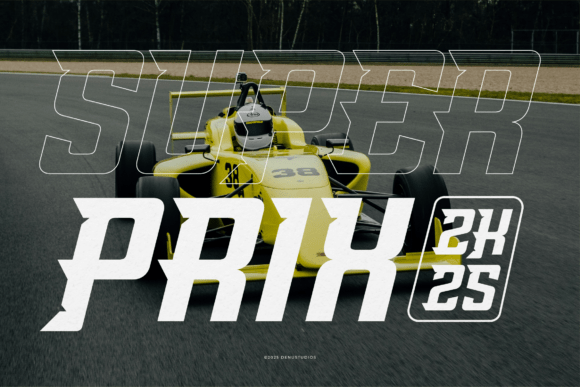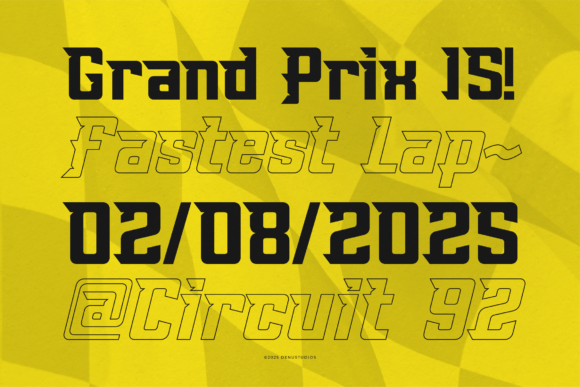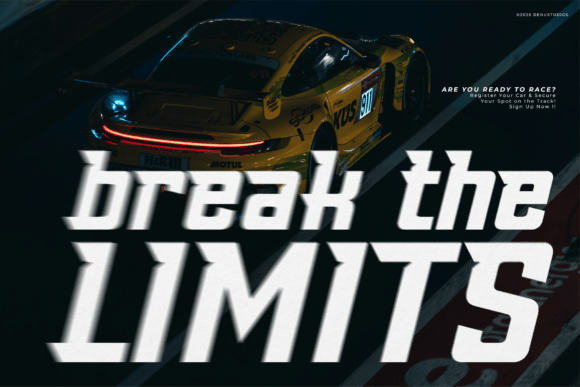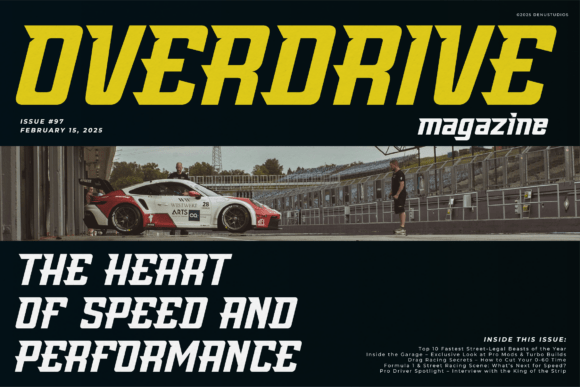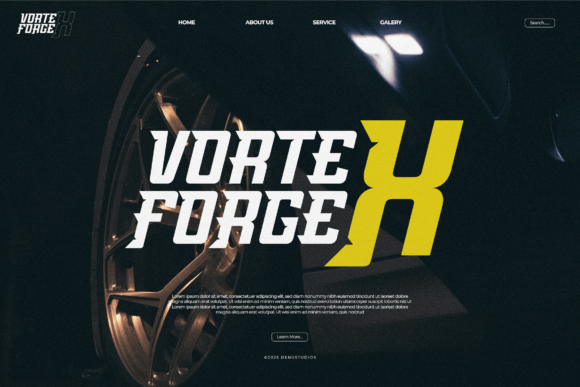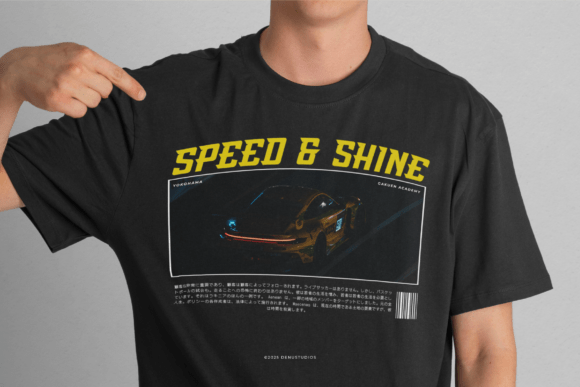
Unleash Your Creativity with Amang Racing Font
Are you looking for a font that embodies the spirit of speed, power, and adrenaline? Look no further than Amang Racing Font, a bold and high-energy typeface designed to take your designs to the next level. With its sharp angles and slanted structure, this font is perfect for creating dynamic logos, racing posters, sports apparel, and futuristic designs that demand attention.
The Inspiration Behind Amang Racing Font
Amang Racing Font is inspired by the world of motorsports, where speed, agility, and power are the ultimate goals. The font’s design is rooted in the thrill of racing, with sharp angles and a slanted structure that evokes the sense of movement and energy. Whether you’re designing a logo for a racing team, creating a poster for a motorsports event, or crafting a bold headline for a sports brand, Amang Racing Font is the perfect choice.
Key Features of Amang Racing Font
So, what makes Amang Racing Font so special? Here are some of its key features:
- Bold and High-Energy Design: Amang Racing Font is designed to make a statement, with bold lines and a high-energy feel that’s perfect for creating dynamic designs.
- Sharp Angles and Slanted Structure: The font’s sharp angles and slanted structure give it a sense of movement and energy, making it perfect for designs that require a sense of speed and power.
- Versatile and Highly Legible: Despite its bold design, Amang Racing Font is highly legible, making it perfect for use in a variety of applications, from logos and posters to headlines and body copy.
Perfect for Motorsports Branding and Design
Amang Racing Font is specifically designed for motorsports branding and design, making it the perfect choice for:
- Racing Team Logos: Create a bold and dynamic logo for your racing team with Amang Racing Font.
- Motorsports Posters: Design eye-catching posters for motorsports events, including racing, drifting, and more.
- Sports Apparel: Use Amang Racing Font to create bold and dynamic designs for sports apparel, including t-shirts, hoodies, and more.
- Futuristic Designs: The font’s futuristic design makes it perfect for use in futuristic designs, including sci-fi movies, video games, and more.
Tips for Using Amang Racing Font
Here are some tips for getting the most out of Amang Racing Font:
- Use it for Headlines and Titles: Amang Racing Font is perfect for use in headlines and titles, where its bold design can make a big impact.
- Experiment with Colors and Effects: Don’t be afraid to experiment with different colors and effects to make your design stand out.
- Pair it with Other Fonts: Amang Racing Font can be paired with other fonts to create a unique and dynamic design.
Amang Racing Font is a bold and high-energy typeface that’s perfect for designers and crafters who want to create dynamic and attention-grabbing designs. With its sharp angles and slanted structure, this font is sure to take your designs to the next level. Whether you’re creating a logo, poster, or headline, Amang Racing Font is the perfect choice. So why wait? Download Amang Racing Font today and feel the adrenaline rush of speed and power in your designs!